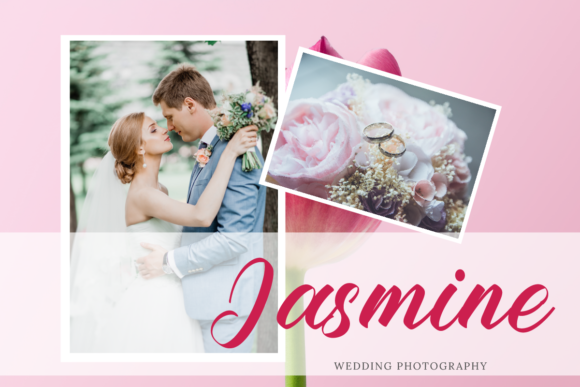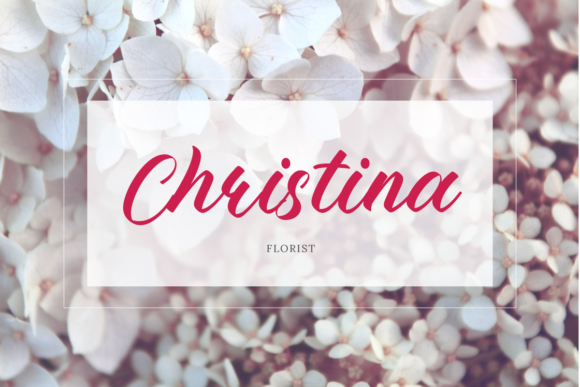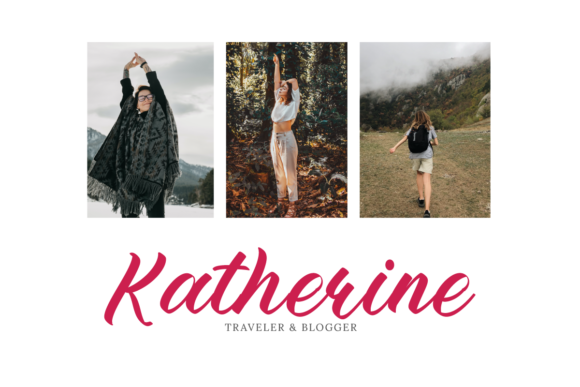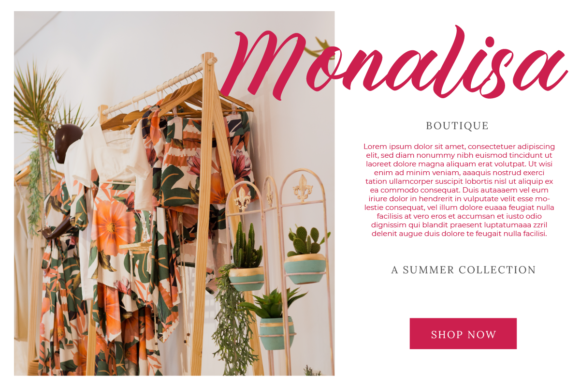
Florence Eloise Font
About Florence Eloise Font
Florence Eloise is a lovely, elegant and unique script font. Fall for its ravishing style and use it to create gorgeous wedding invitations, beautiful stationary art, eye-catching social media posts, and much more!